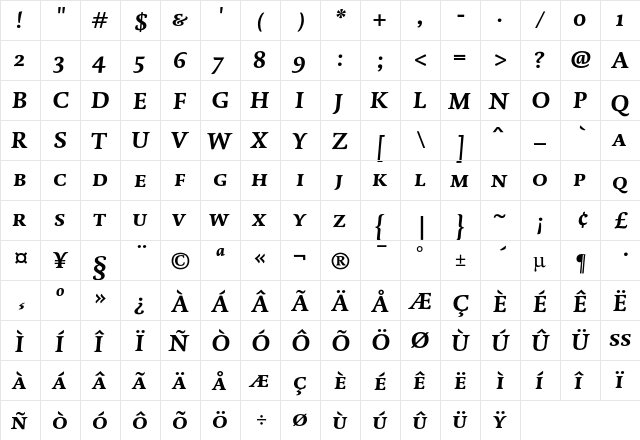
DTL Dorian T Caps Bold Italic Font Preview
| Style | T Caps Bold Italic |
Design Context for DTL Dorian Typeface
DTL Dorian takes a measured approach to typography — its balanced proportions and neutral character make it a reliable workhorse for both digital and print work. The slanted form adds forward momentum and visual energy. The heavy weight commands attention and anchors typographic hierarchies.
Pro Tip: Try DTL Dorian for annotation and caption copy alongside an upright companion — the contrast in angle creates a dynamic but ordered typographic system.